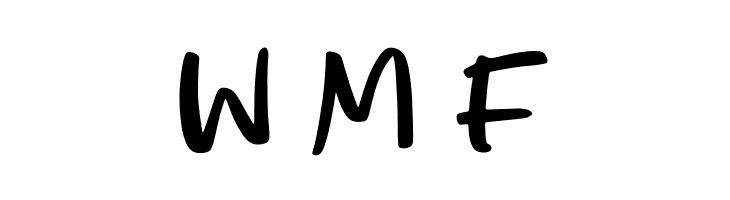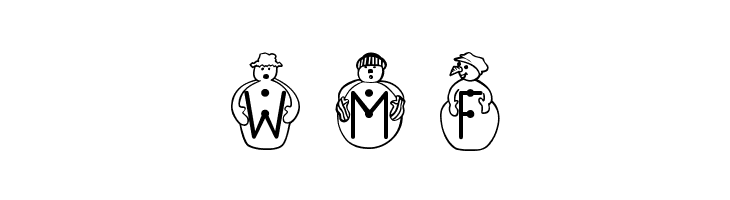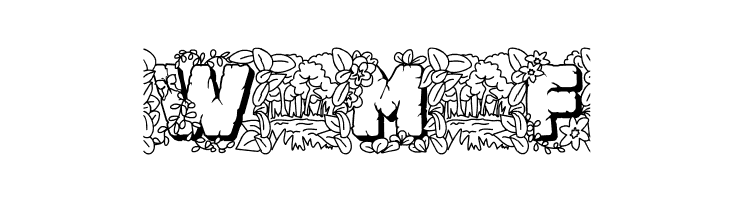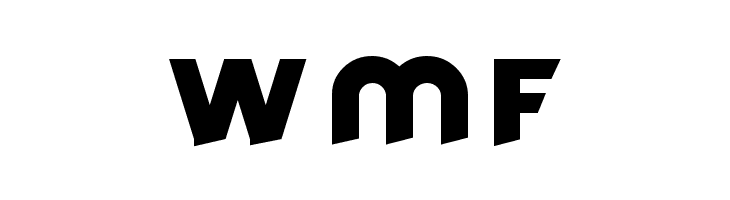
Playful handwritten font with smooth flow.
A bold, geometric font with sharp angles and a modern aesthetic.
A decorative, jungle-themed font with bold letters and intricate foliage designs.
A bold, textured font with a rocky, natural appearance.
A bold, textured font with a rugged, stone-like appearance.
A whimsical snowman-themed font with bold, clear characters.